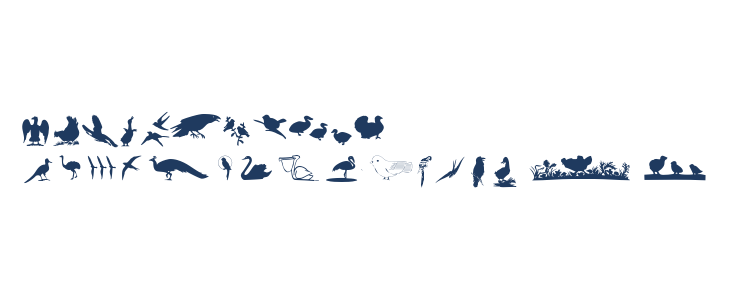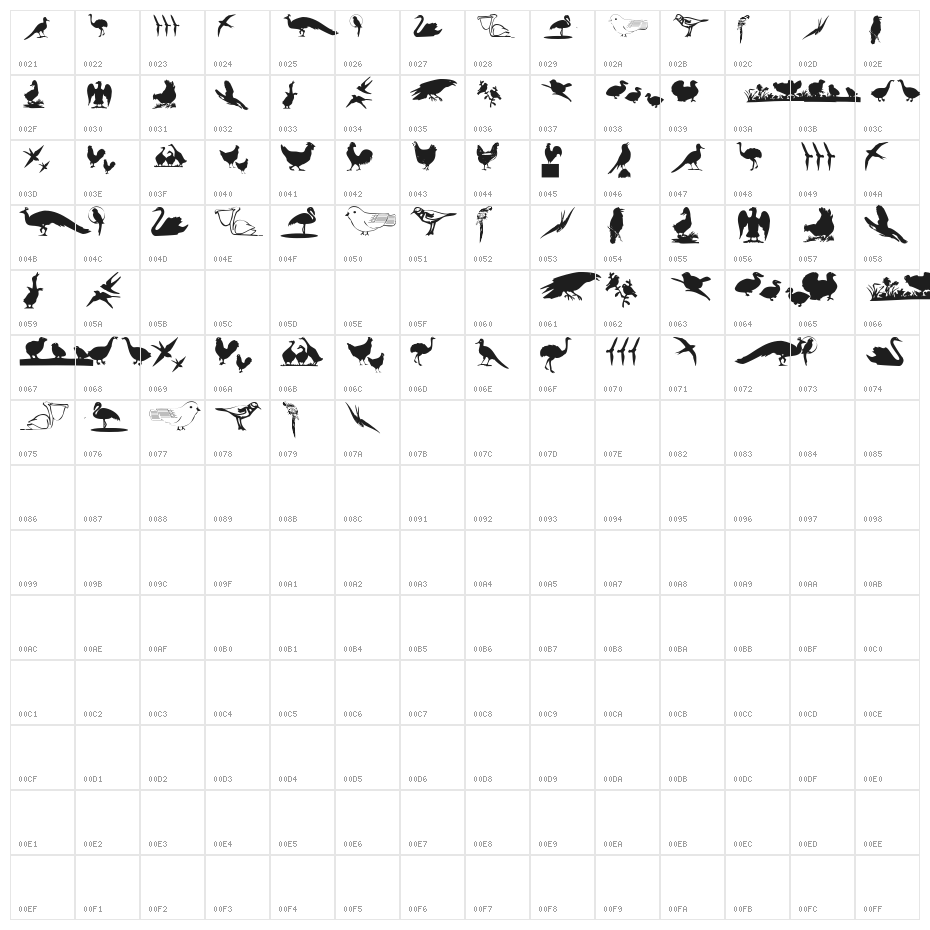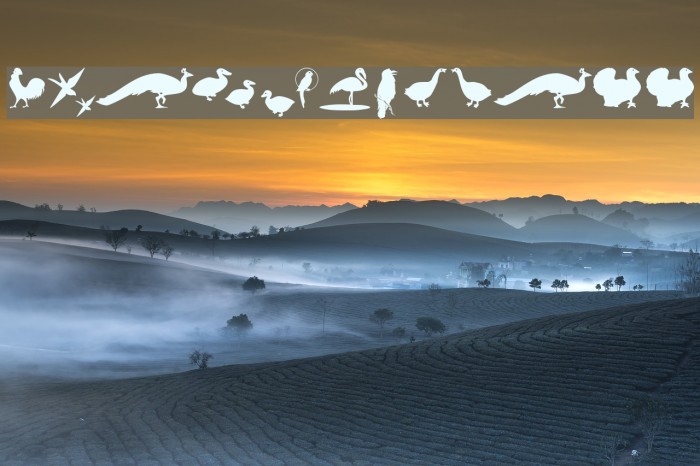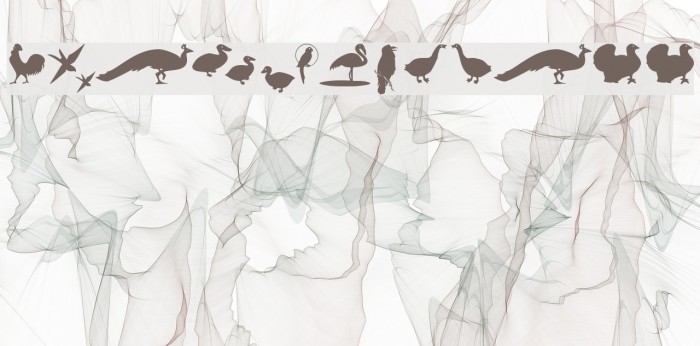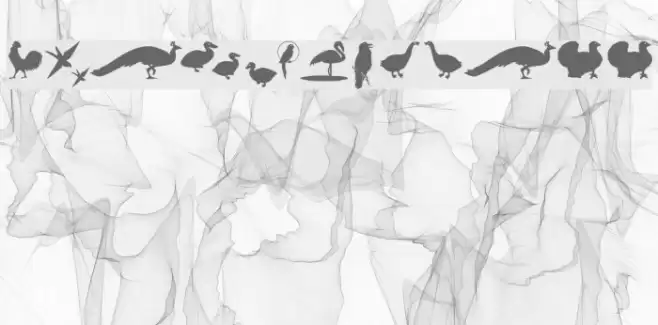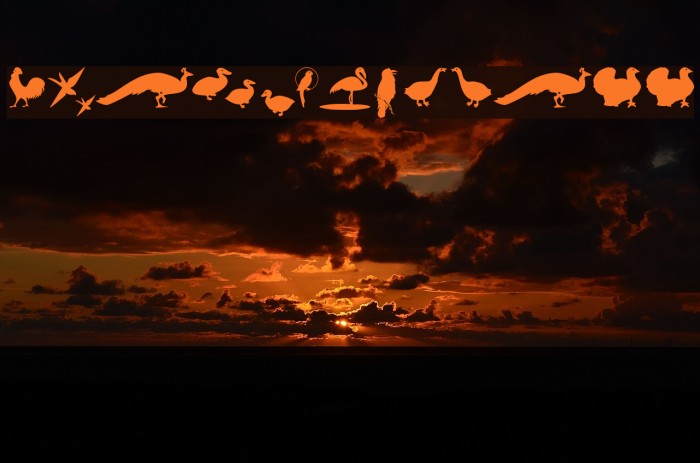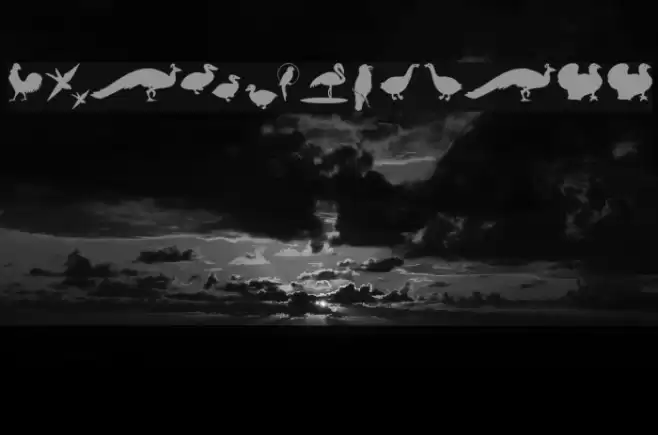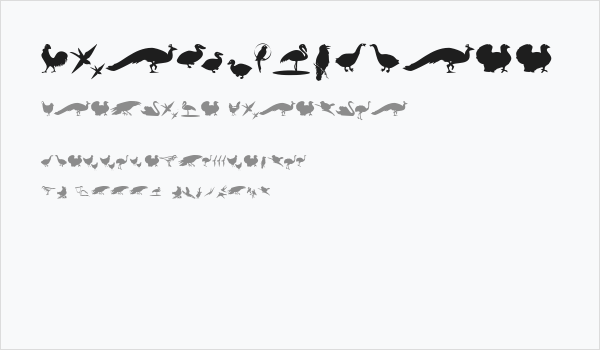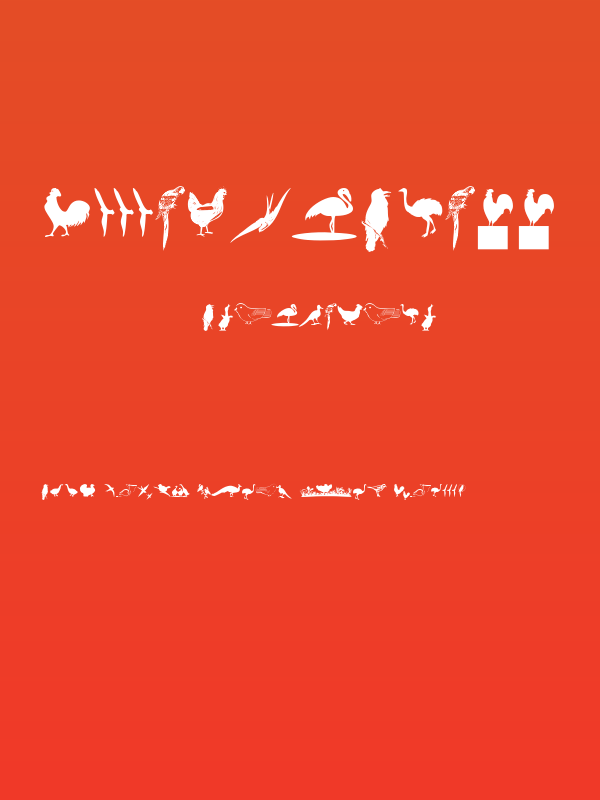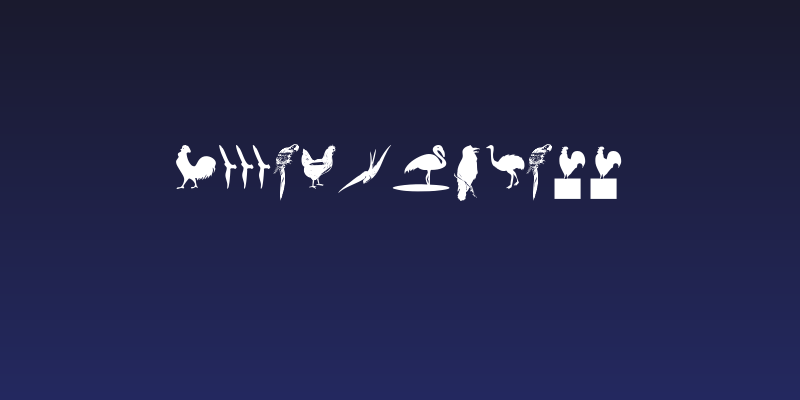
BirdsOThree Font
BirdsOThree Description
A decorative dingbat font featuring a variety of bird silhouettes and illustrations, including chickens, peacocks, swans, pelicans, and songbirds. The glyphs are detailed and range from solid black silhouettes to outlined drawings, offering a mix of realistic and stylized representations.
| Overall Style | Decorative, Nature-inspired |
| Use Case | Icons, Decorative elements, Thematic dividers |
| Proposed Projects | Nature-themed posters, educational materials, childrenΓ’β¬β’s books, wildlife branding, decorative borders, and scrapbooking. |